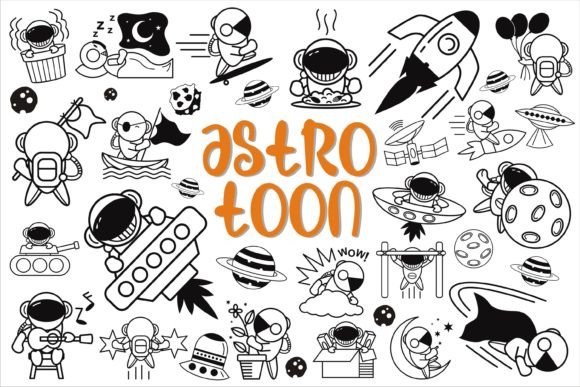
Step into a realm of unbridled creativity with Astro Toon Font, a dingbats font that ignites the imagination and transports you to the cosmos. Unleash the magic of intricate designs, adorable characters, and captivating themes, all revolving around the wonder of space exploration.
Immerse yourself in a universe of stars, planets, and whimsical astronauts, meticulously crafted to bring life to your projects. This font is more than just a collection of glyphs; it's a gateway to a world where dreams take flight.
Picture this: a children's book that comes alive with playful characters, each stroke of the font propelling the story forward. Engage young minds with educational posters and presentations that make learning an out-of-this-world experience.
Astro Toon Font is not just for kids. It's for the dreamers, the explorers, and the storytellers who dare to think beyond the ordinary. Create social media posts that sparkle with cosmic charm, captivating your audience with every word. Design logos and branding that evoke a sense of wonder and intrigue, leaving a lasting impression on your customers.
The possibilities are limitless, bound only by the reaches of your imagination. Embrace the playful spirit of Astro Toon Font and embark on a creative journey that's out of this world.
- Dingbats font family
- Enchanting themes and cartoon characters
- Perfect for astronomy education-themed designs
- Ideal for children's projects
- Adds a touch of whimsy and creativity